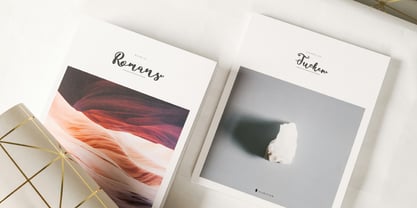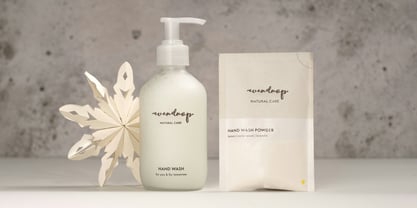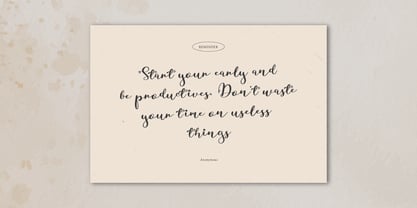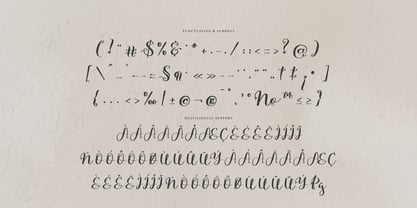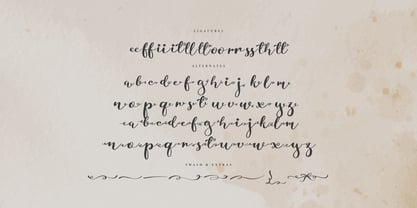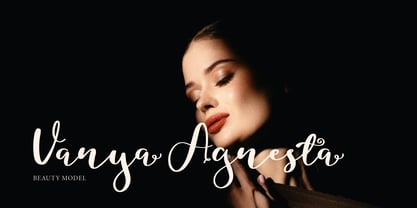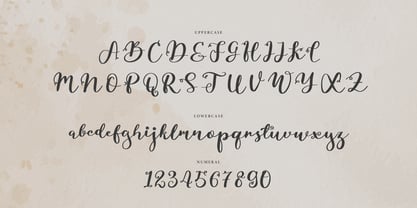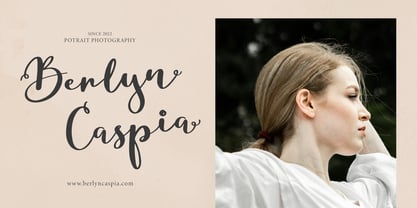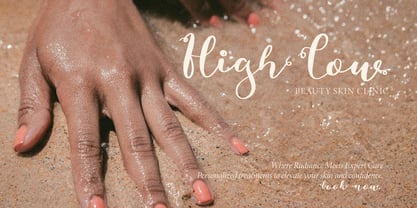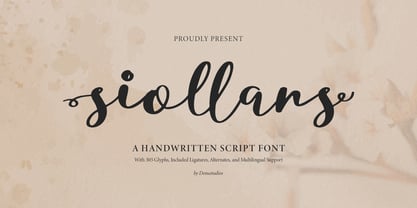
Siollars
The Siollars Font Family was designed by Dede Nugraha and published by Denustudio. Siollars contains 2 styles and family package options.
Siollars | Handwritten Script Font, from Denustudios, suitable for any projects such as: logos, branding projects, homeware designs, product packaging, mugs, quotes, posters, shopping bags, t-shirts, book covers, name card, invitation cards, greeting cards, label, photography, watermark, special events, and all your other lovely projects that need a Handwritten Script Font taste.
• Regular and Italic
• Alternate and Ligature